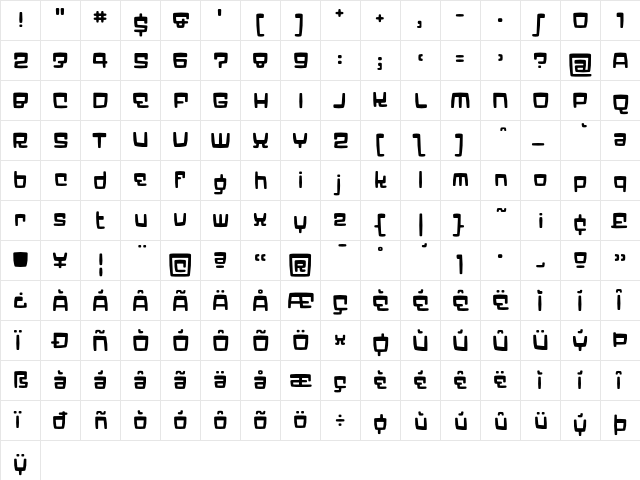
Elektron Regular
Design Context for Elektron Typeface
Elektron is a composed and adaptable typeface that performs quietly and consistently across a wide range of design contexts.